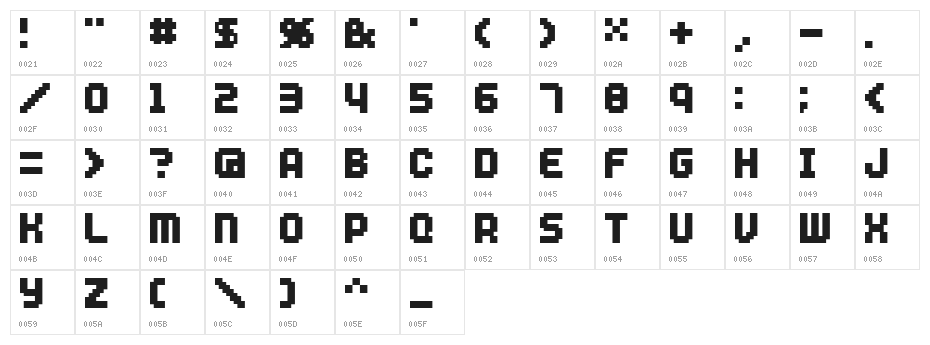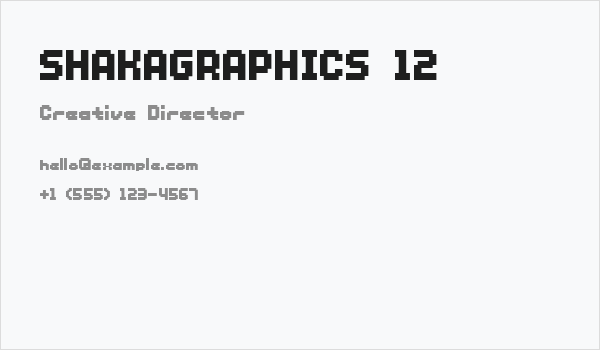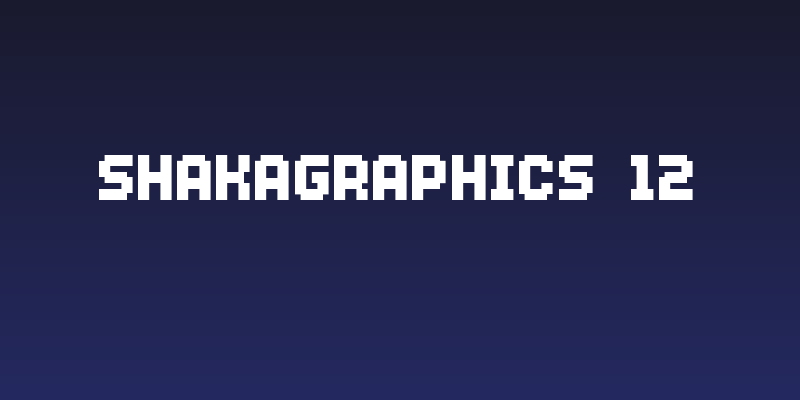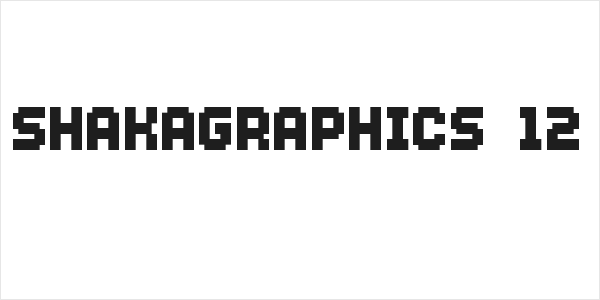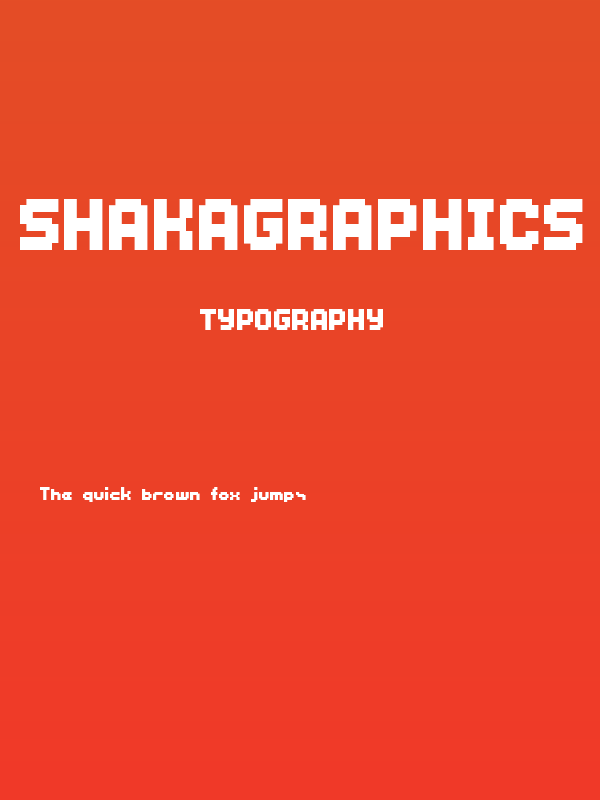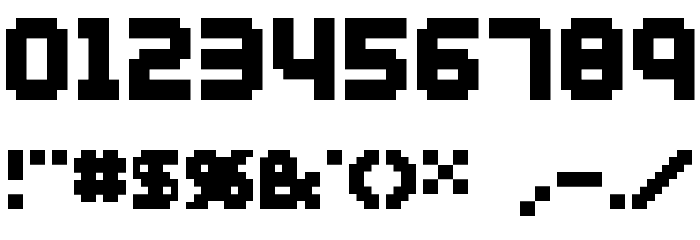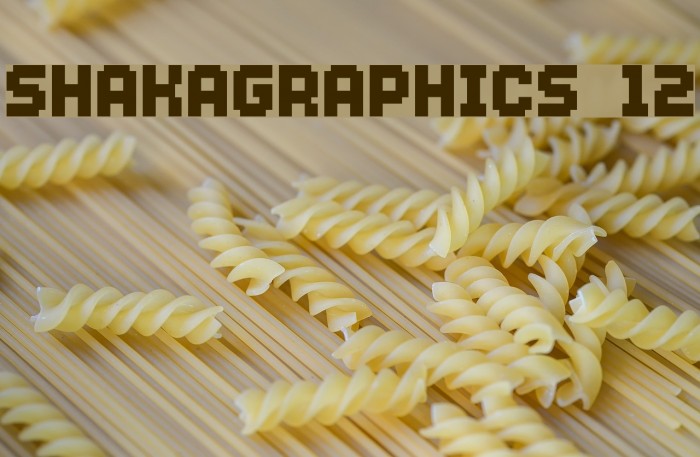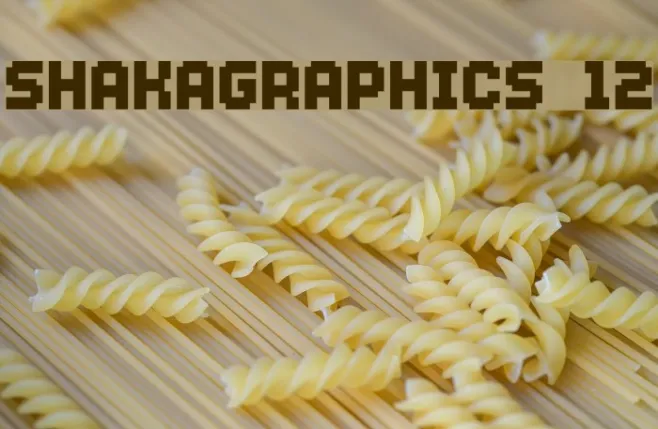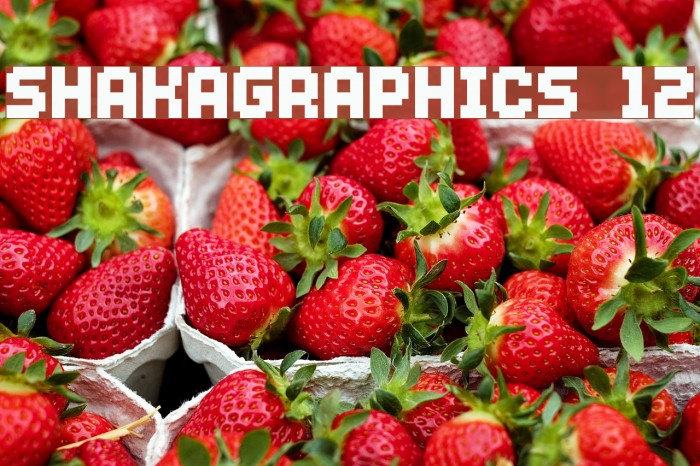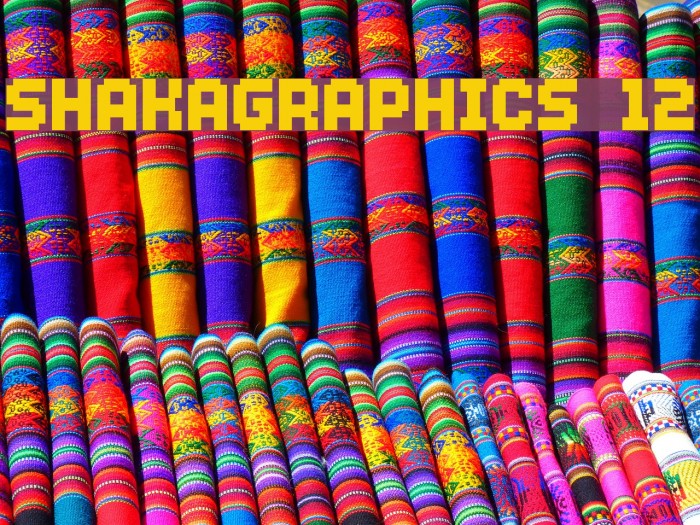
This font features a bold, pixelated design reminiscent of early digital or video game aesthetics. Each character is constructed with a blocky, grid-like structure, giving it a distinctly retro and geometric appearance. The uppercase and lowercase letters maintain a consistent height, contributing to a uniform and cohesive look. Numbers and special characters follow the same pixelated style, ensuring visual harmony across all glyphs. The font's simplicity and clarity make it highly legible, even at smaller sizes, while its unique style adds a playful and nostalgic touch.
| Use Case | Headlines, Logos, Digital Art |
| Proposed Projects | Ideal for video game design, retro-themed posters, digital art projects, and any creative work that seeks to evoke nostalgia for early computing or gaming eras. |